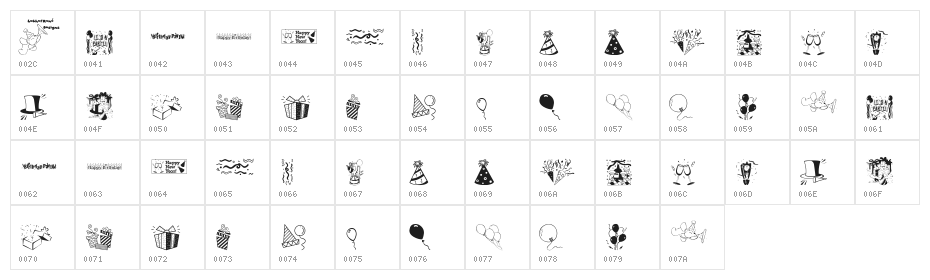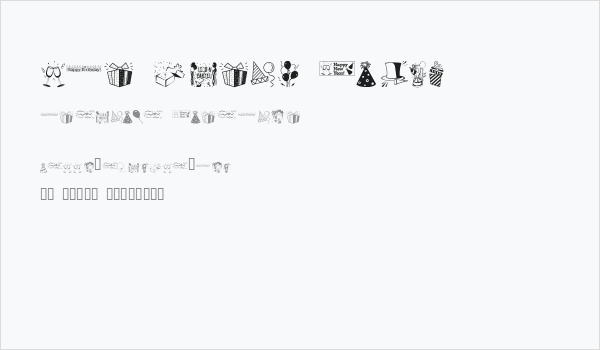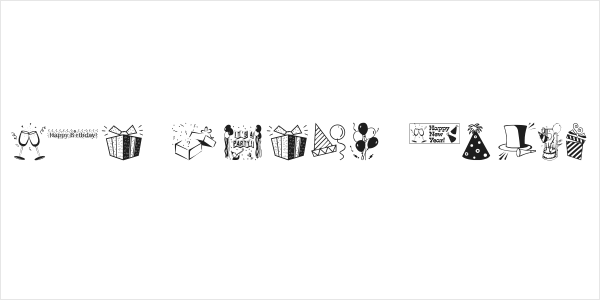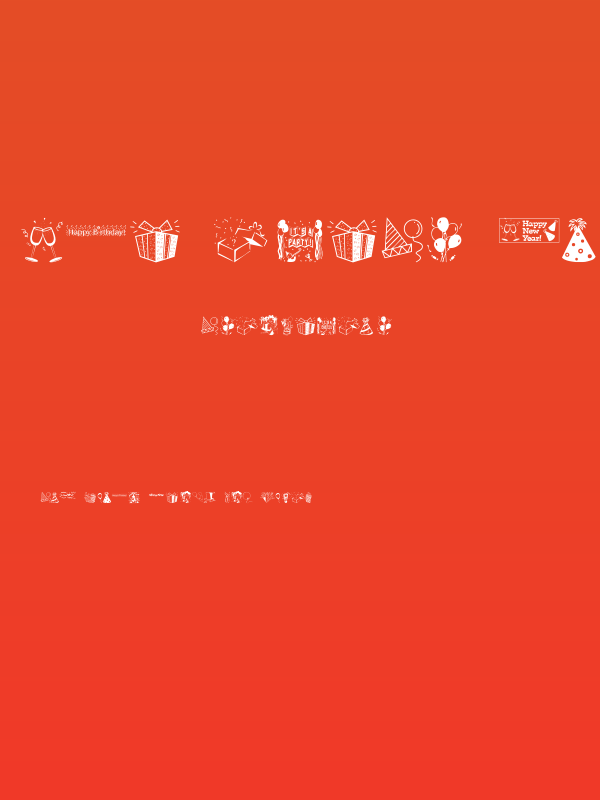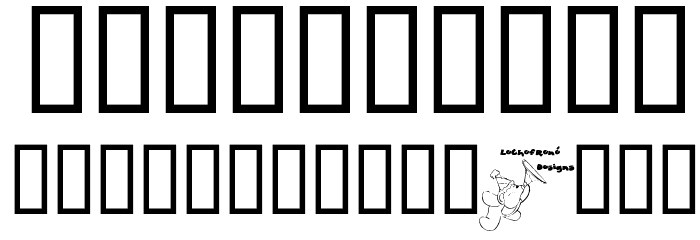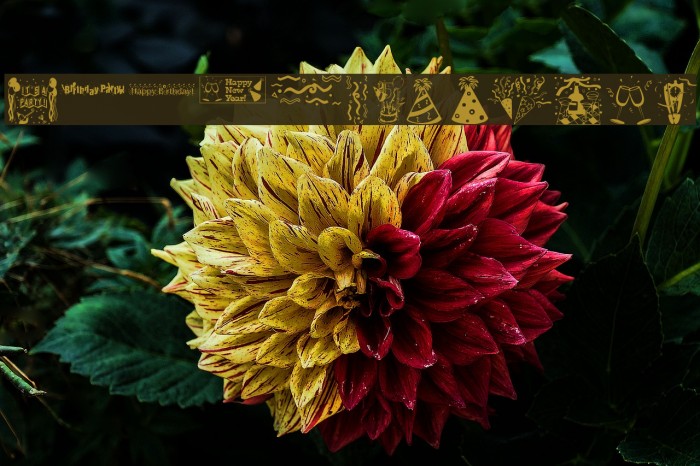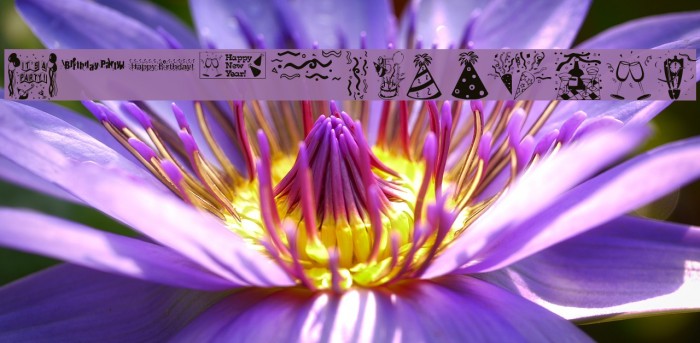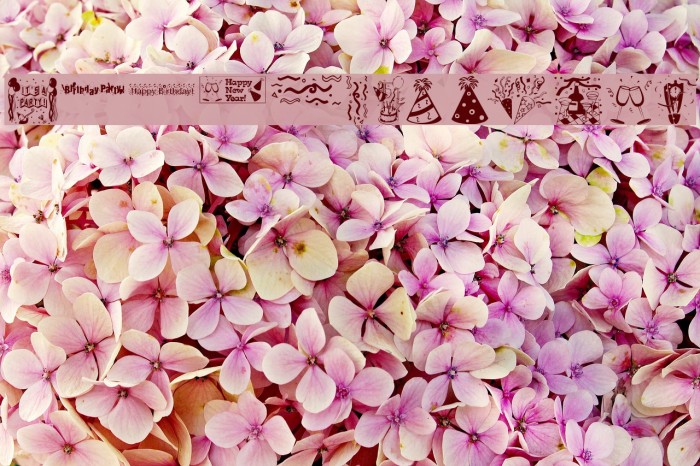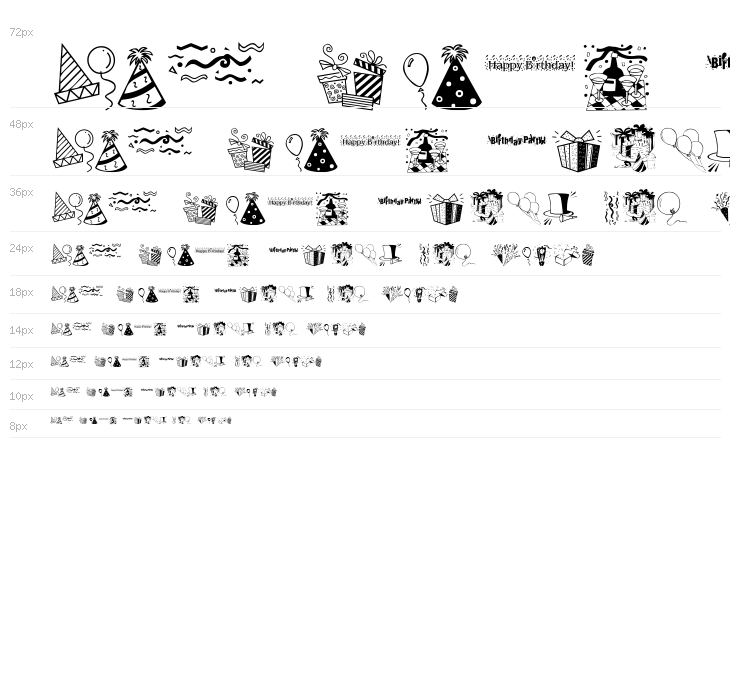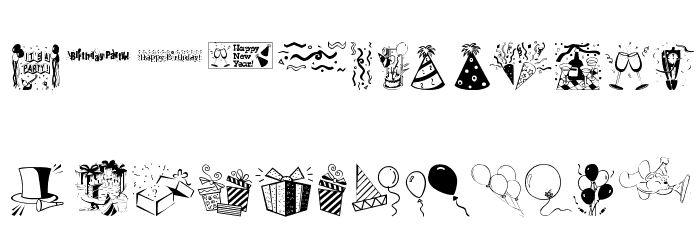
LCR Party Dings Font
This is a decorative dingbat font featuring a variety of festive and celebratory icons. The design includes elements such as party hats, balloons, gifts, and celebratory text like 'Happy Birthday' and 'Happy New Year'. The icons are playful and whimsical, with a hand-drawn style that adds a personal touch. The font is perfect for adding a festive flair to any project, with its diverse range of party-themed graphics. The icons are bold and clear, making them suitable for both digital and print media. The style is consistent throughout, with a focus on celebration and joy, making it ideal for invitations, greeting cards, and party decorations.
| Use Case | Logos, Invitations, Decorations |
| Proposed Projects | Ideal for party invitations, greeting cards, event flyers, and festive decorations. |